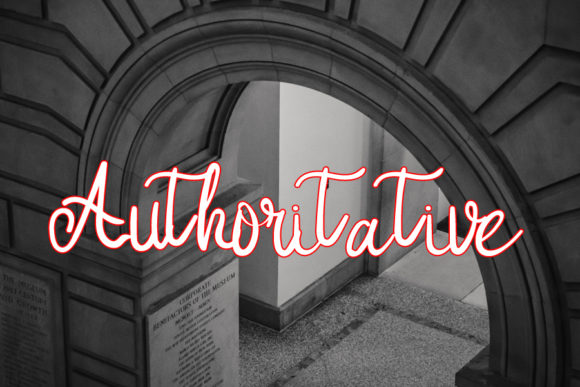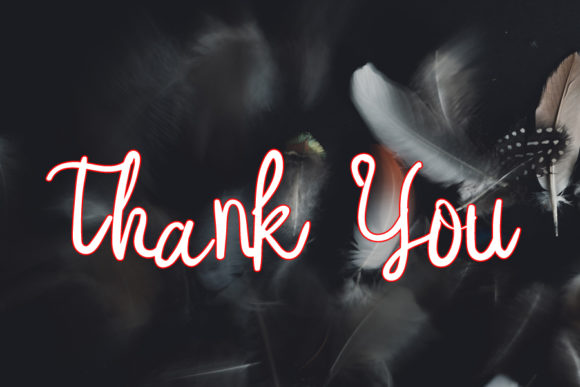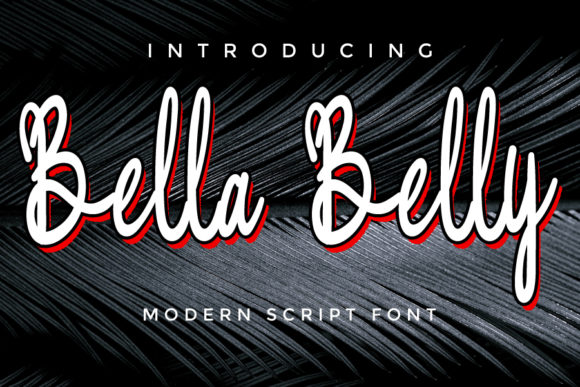
Bella Belly Font: The Perfect Choice for Creative Projects
Bella Belly is a stunning handwritten font that has been making waves in the design community. With its flowing and festive style, this font is perfect for crafters, designers, and anyone looking to add a touch of elegance to their creative projects. In this article, we’ll dive into the world of Bella Belly Font and explore its features, benefits, and uses.
What is Bella Belly Font?
Bella Belly is a carefully crafted handwritten font that exudes a sense of joy and celebration. Its unique and flowing style makes it perfect for a wide range of creative projects, from party invitations and greeting cards to branding and advertising materials. Whether you’re a professional designer or a DIY crafter, Bella Belly Font is sure to become your go-to choice for adding a personal touch to your work.
Key Features of Bella Belly Font
- Flowing and Festive Style: Bella Belly Font boasts a beautiful, flowing script that adds a touch of elegance to any design.
- Handwritten with Love: This font is carefully crafted to mimic the look and feel of handwritten text, making it perfect for adding a personal touch to your projects.
- Highly Versatile: Bella Belly Font can be used for a wide range of creative projects, from digital designs to print materials.
- Easy to Read: Despite its ornate style, Bella Belly Font is highly legible, making it perfect for use in body text and headings.
Benefits of Using Bella Belly Font
So why choose Bella Belly Font for your creative projects? Here are just a few benefits of using this amazing font:
- Adds a Personal Touch: With its handwritten style, Bella Belly Font adds a personal touch to your designs that is hard to replicate with other fonts.
- Increases Creativity: The unique and flowing style of Bella Belly Font is sure to inspire your creativity and take your designs to the next level.
- Perfect for Festive Occasions: Whether you’re designing invitations for a birthday party, a wedding, or a holiday celebration, Bella Belly Font is the perfect choice.
- Great for Branding and Advertising: With its elegant and sophisticated style, Bella Belly Font is also perfect for use in branding and advertising materials.
Uses of Bella Belly Font
Bella Belly Font is a highly versatile font that can be used for a wide range of creative projects, including:
- Party Invitations: Create beautiful and festive party invitations that set the tone for your celebration.
- Greeting Cards: Add a personal touch to your greeting cards with Bella Belly Font’s elegant and flowing script.
- Branding and Advertising: Use Bella Belly Font to create stunning branding and advertising materials that stand out from the crowd.
- Digital Designs: Add a touch of elegance to your digital designs, from social media graphics to website headers.
Tips for Using Bella Belly Font
Here are a few tips for getting the most out of Bella Belly Font:
- Experiment with Different Sizes: Bella Belly Font looks great in a variety of sizes, from small body text to large headings.
- Pair with Other Fonts: Try pairing Bella Belly Font with other fonts to create a unique and eye-catching design.
- Use for Headings and Titles: Bella Belly Font is perfect for use in headings and titles, where its flowing style can really shine.
In conclusion, Bella Belly Font is a stunning handwritten font that is perfect for crafters, designers, and anyone looking to add a touch of elegance to their creative projects. With its flowing and festive style, highly legible text, and versatility, Bella Belly Font is sure to become your go-to choice for a wide range of creative projects. So why wait? Give Bella Belly Font a try today and see the difference it can make in your designs!